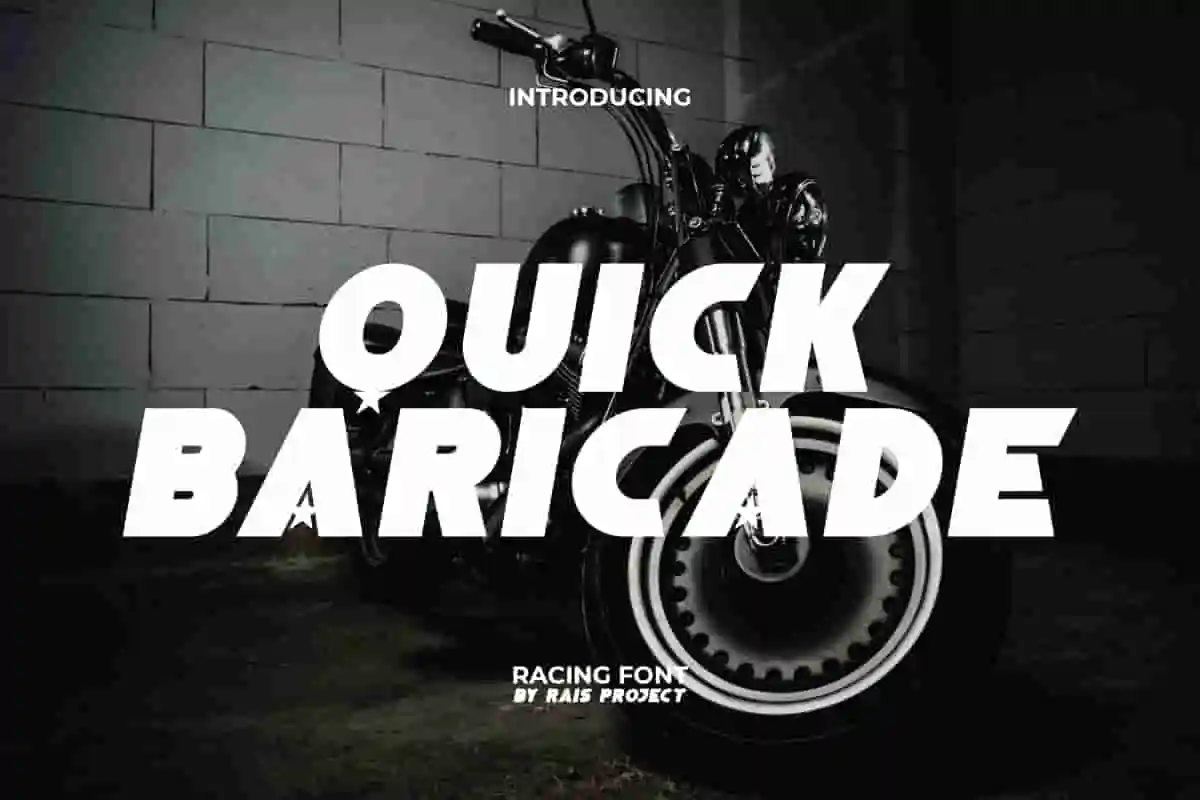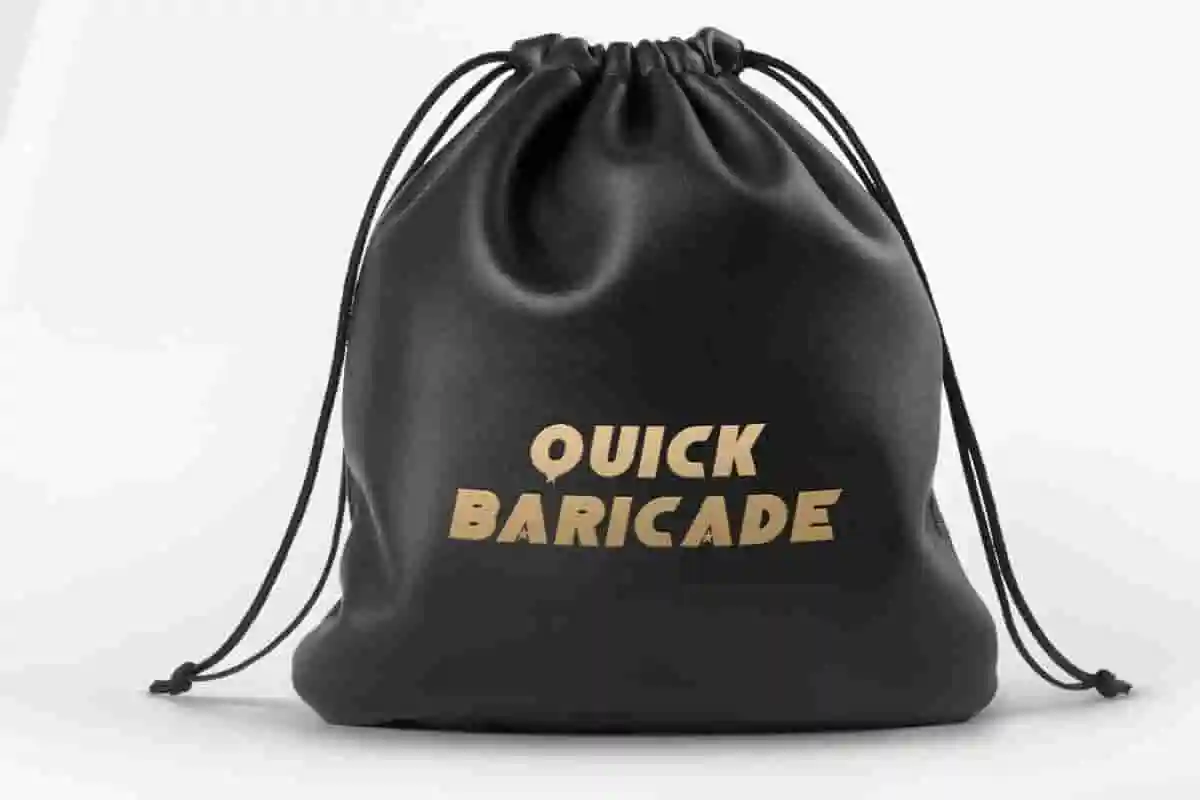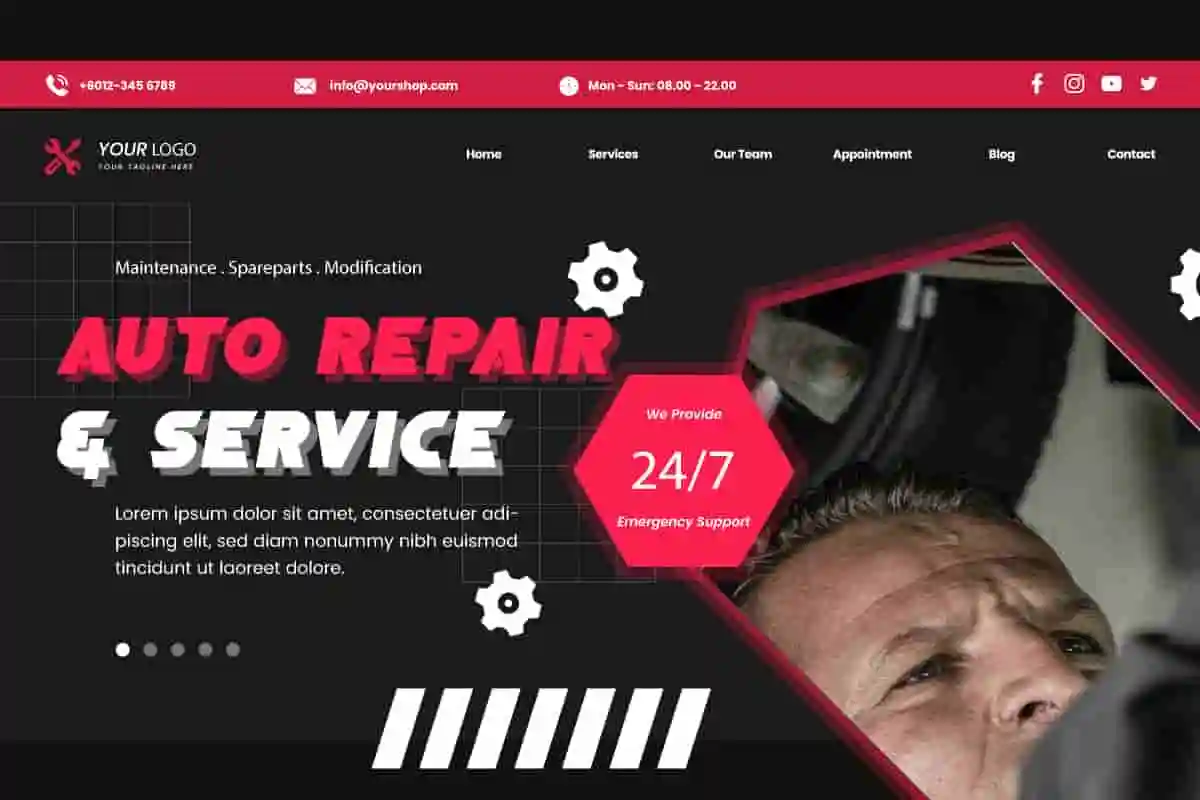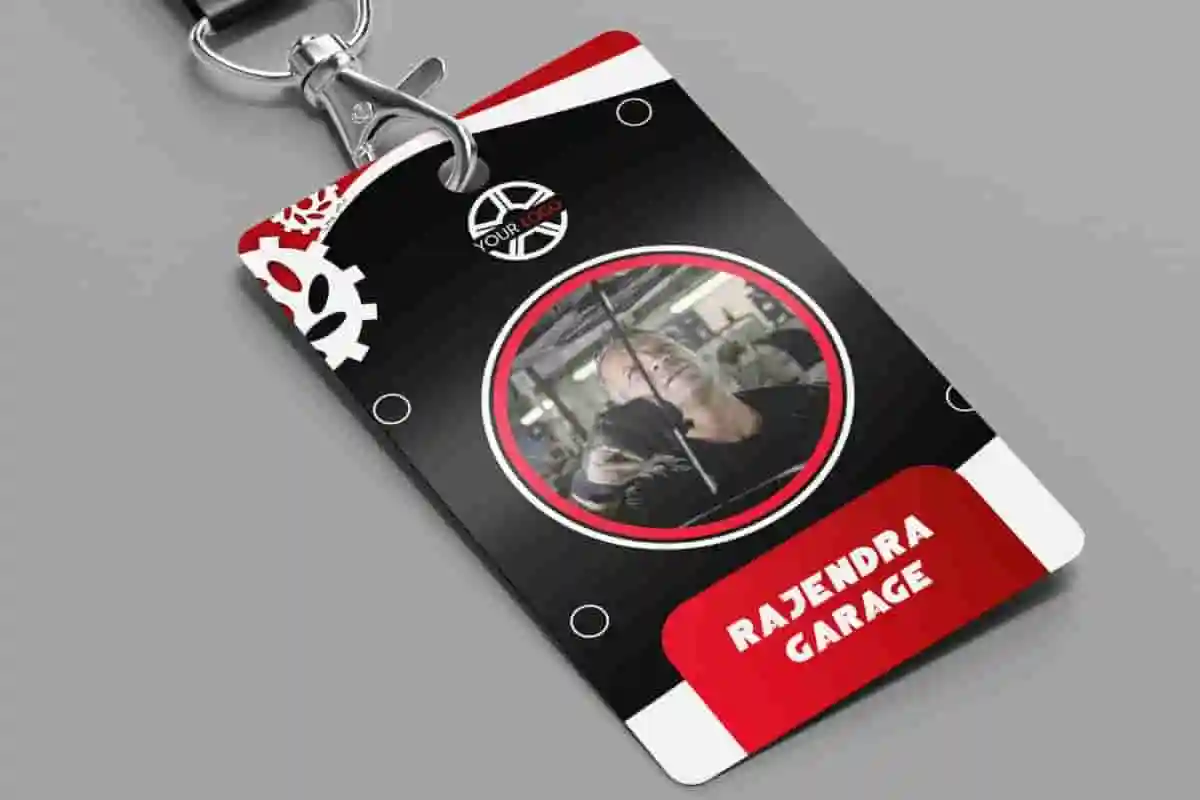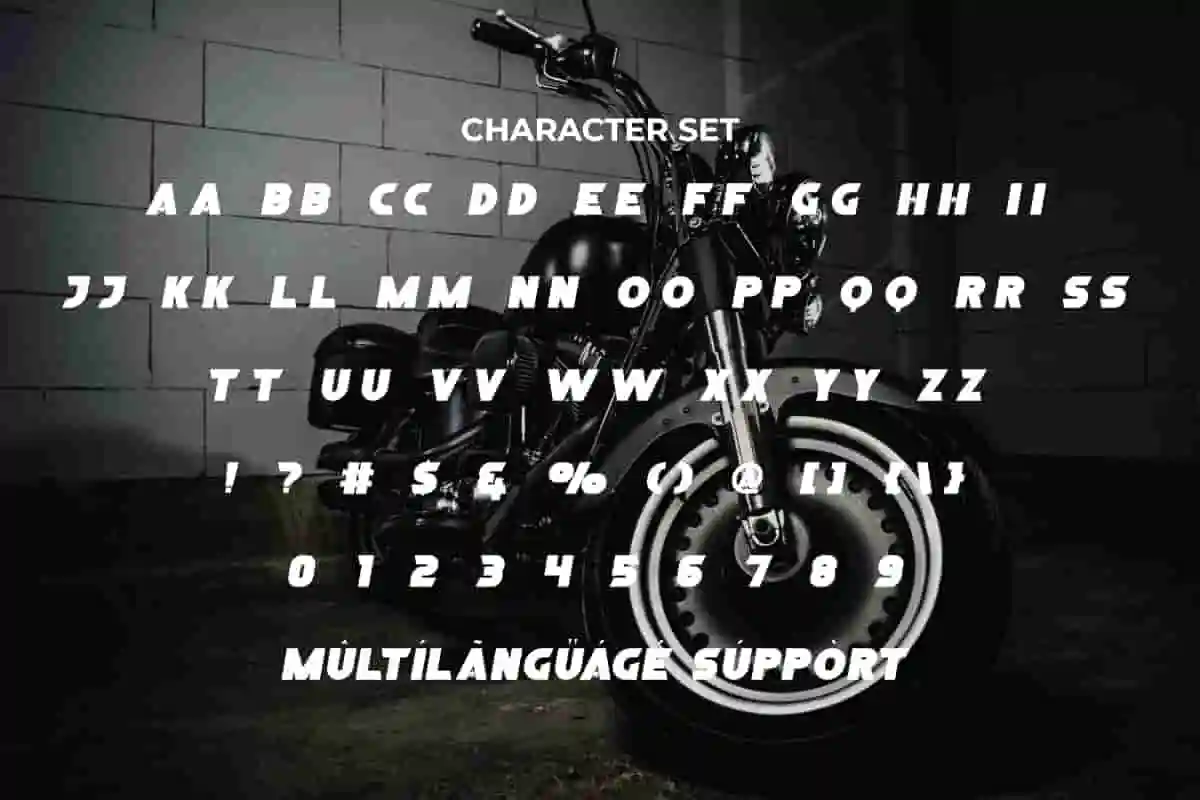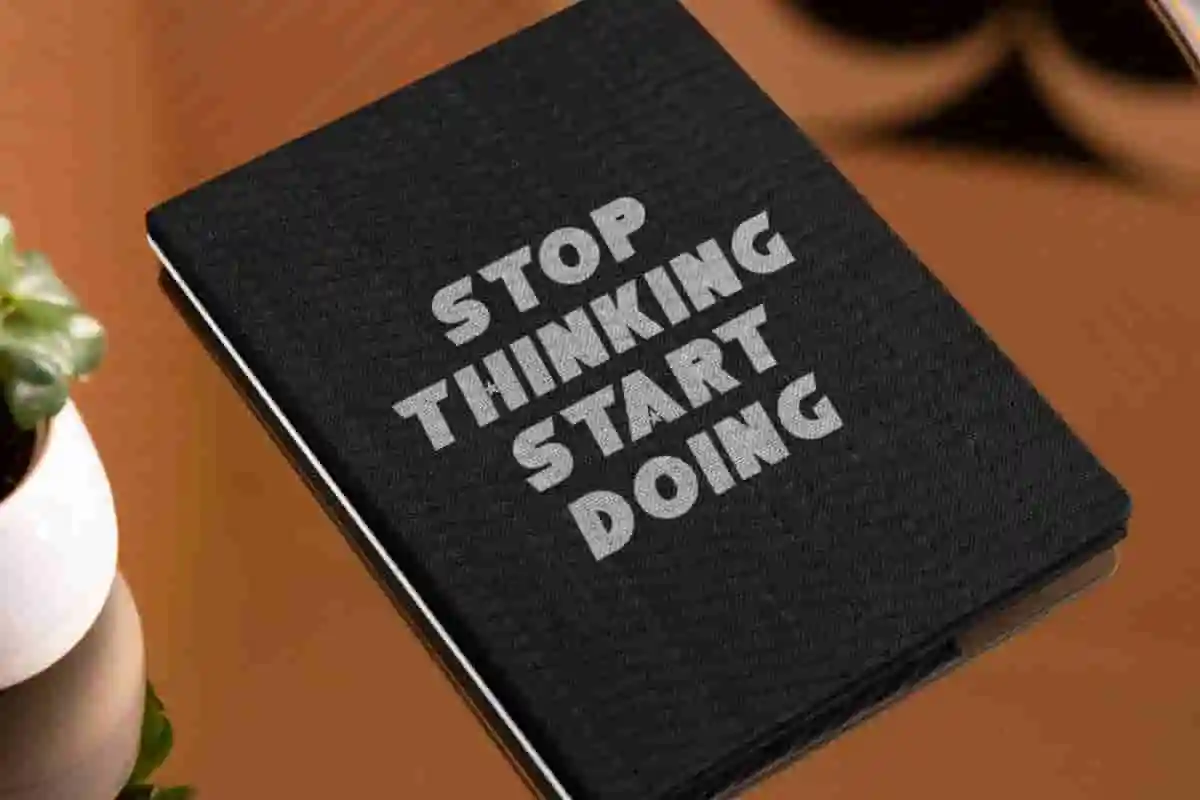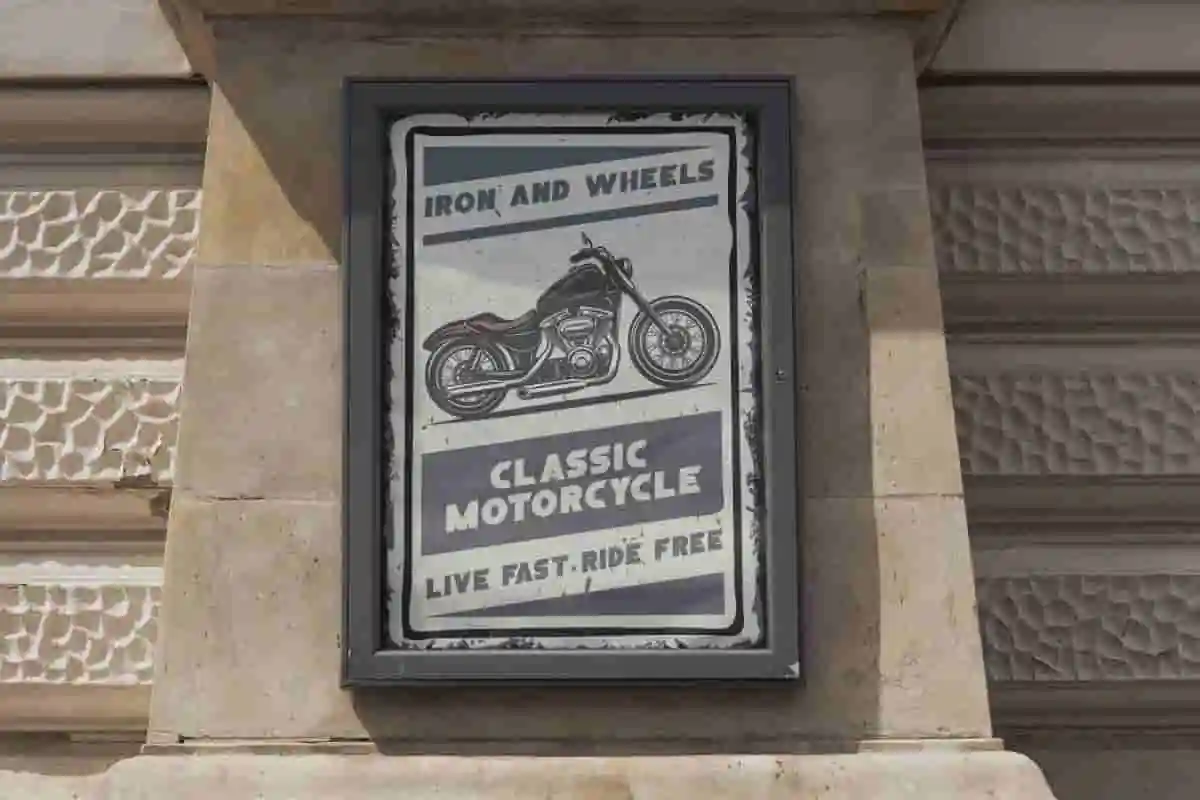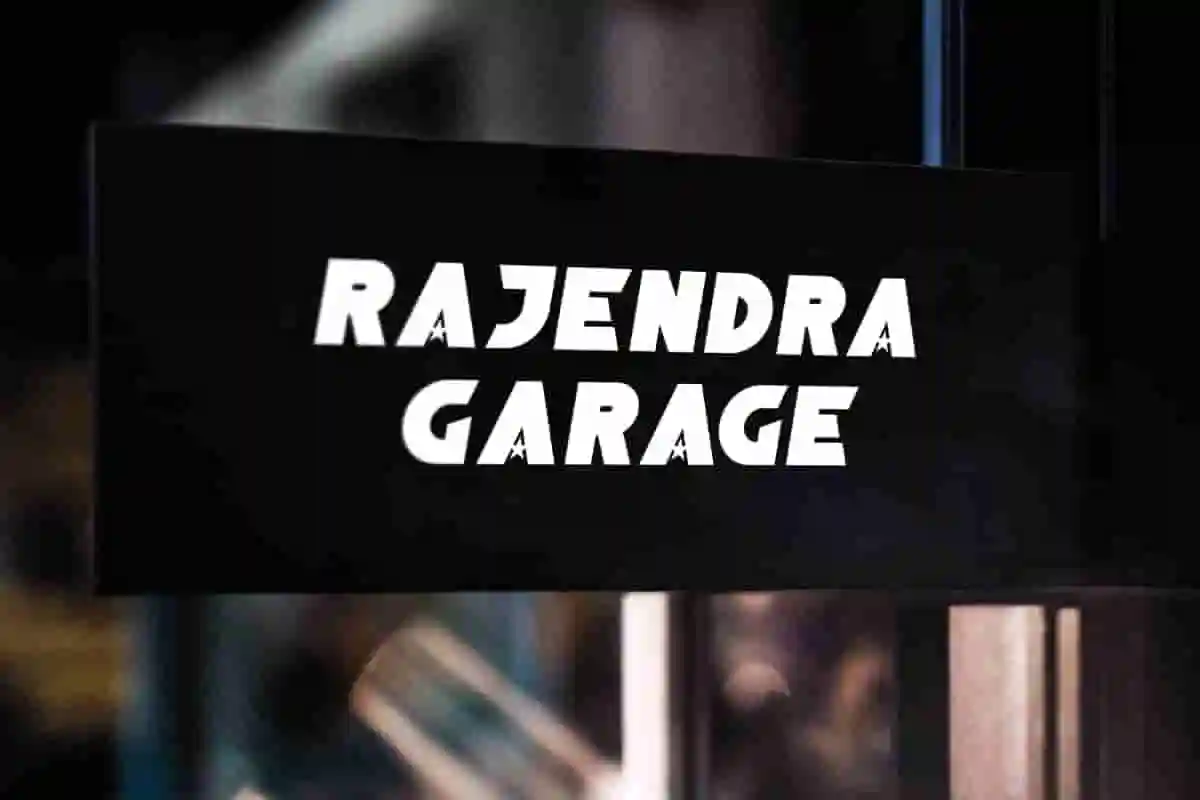
Quick Baricade Font
Quick Baricade Font is a modern style font with a unique concept to make your design look more trendy!
Quick Baricade Font is a unique font that can convey an impressive modern vibe, by RaisProject. The uniqueness of this font lies in the star that is use to connect the letter across each character, giving it a different appearance. It will be great for poster, label, signage, stationery, custom design, product packaging, quotes, brand image, advertisement, invitation, marketing material, website page, and more!
Introducing Quick Baricade Display Font – a bold, modern, and energetic typeface built to command attention and give your projects a strong visual identity. With sharp edges, dynamic strokes, and a contemporary design, Quick Baricade is perfect for creating eye-catching logos, posters, sports branding, gaming graphics, merchandise, and digital content. This font is made for creatives who want their designs to stand out with confidence and style.
Quick Baricade Display Font combines boldness with versatility. Its striking letterforms are ideal for event promotions, advertising campaigns, product packaging, and social media posts that need instant impact. Designed for maximum readability and visual strength, it works seamlessly across both print and digital platforms.
In today’s competitive creative landscape, typography is one of the most powerful tools to build brand recognition. Quick Baricade Display Font gives your projects a bold, fearless personality that grabs attention and leaves a lasting impression. It’s especially perfect for industries like sports, gaming, tech, and entertainment that thrive on strong and impactful visuals.
Quick Baricade Display Font includes a full set of ALL CAPS for Uppercase and Lowercase Letters, Numerals, and large range of Punctuation. This modern font will be suitable for various industries, such as sports, automotive, fashion, game, barber shop, cafe, event or festival, photography, printing, publishing, etc.